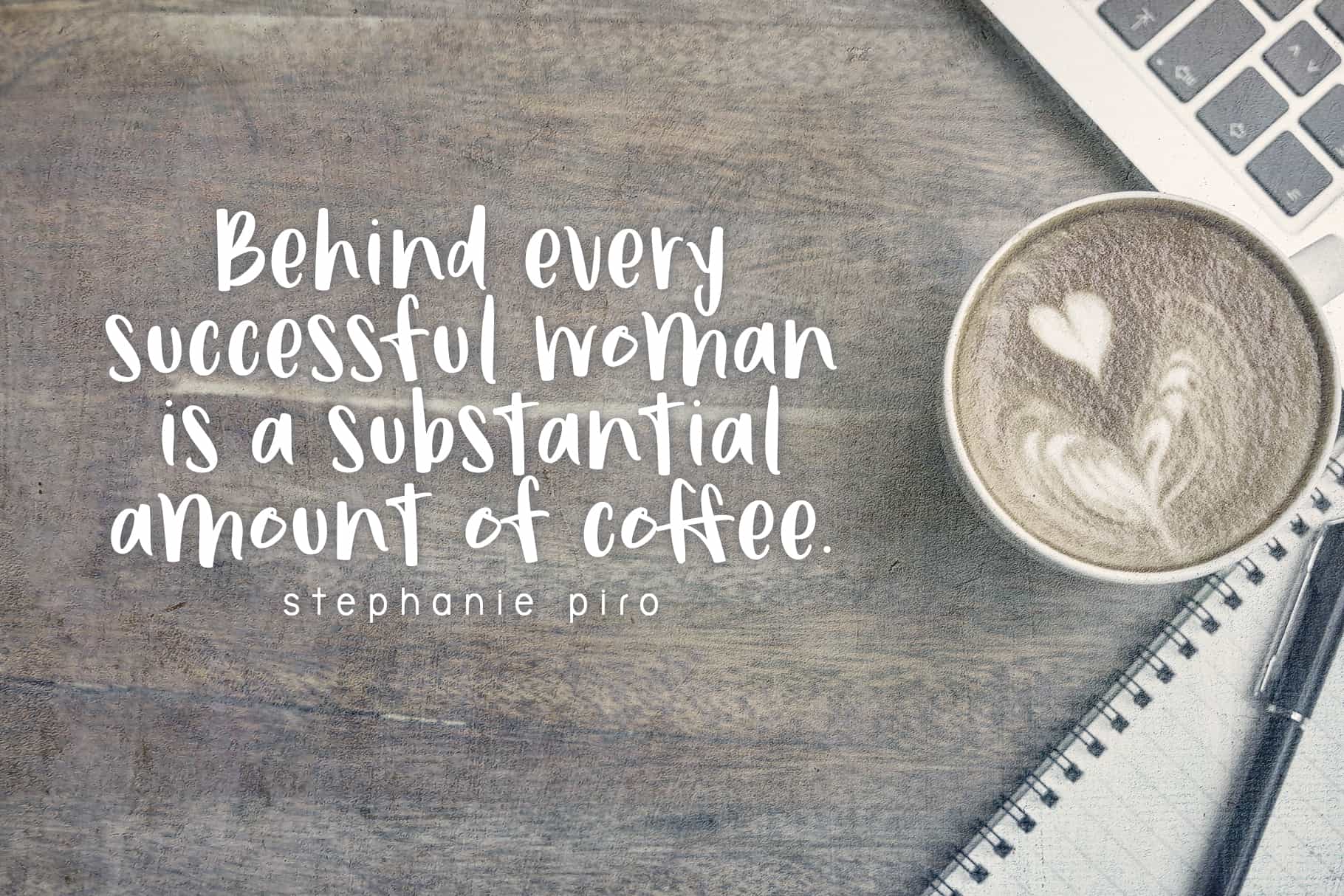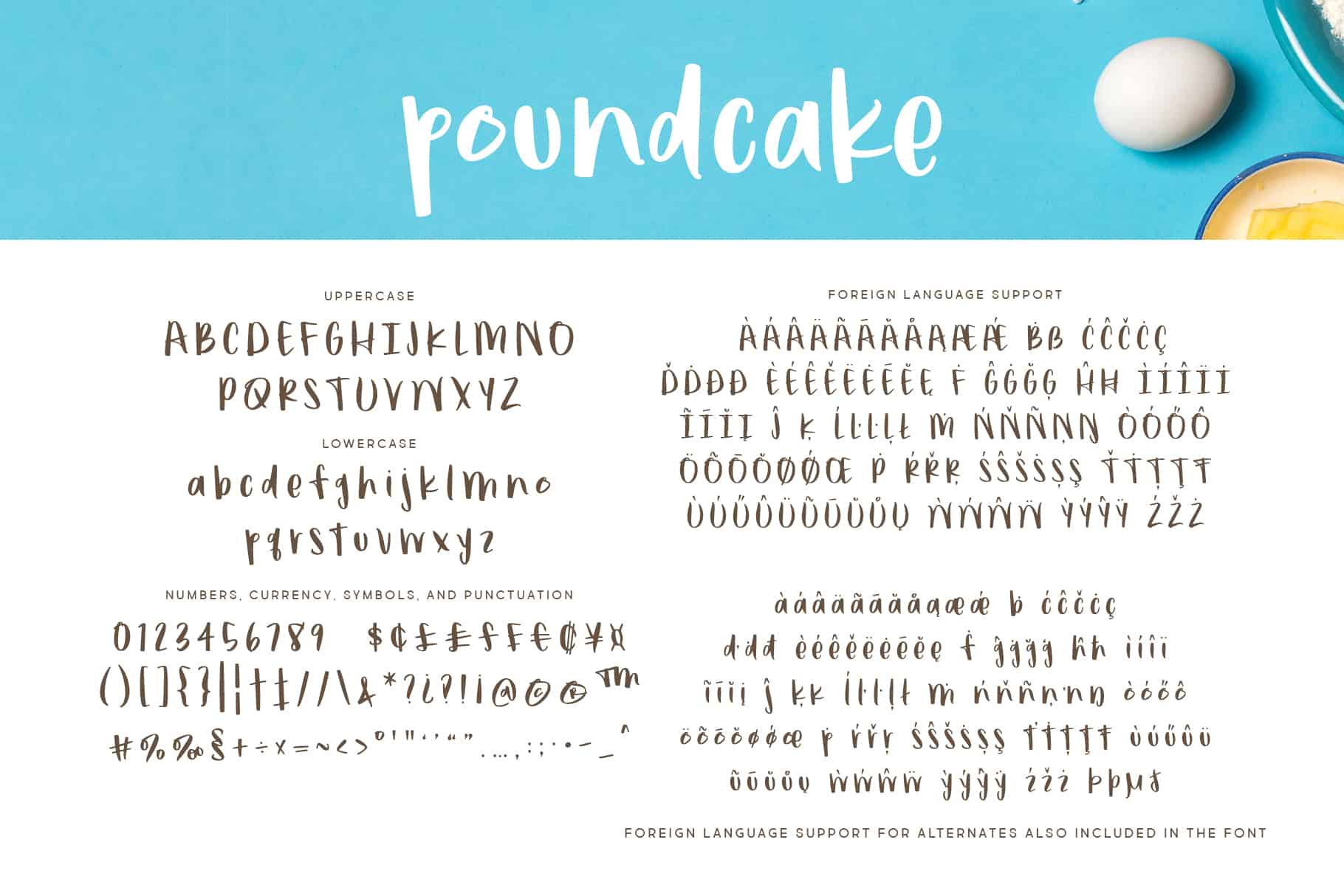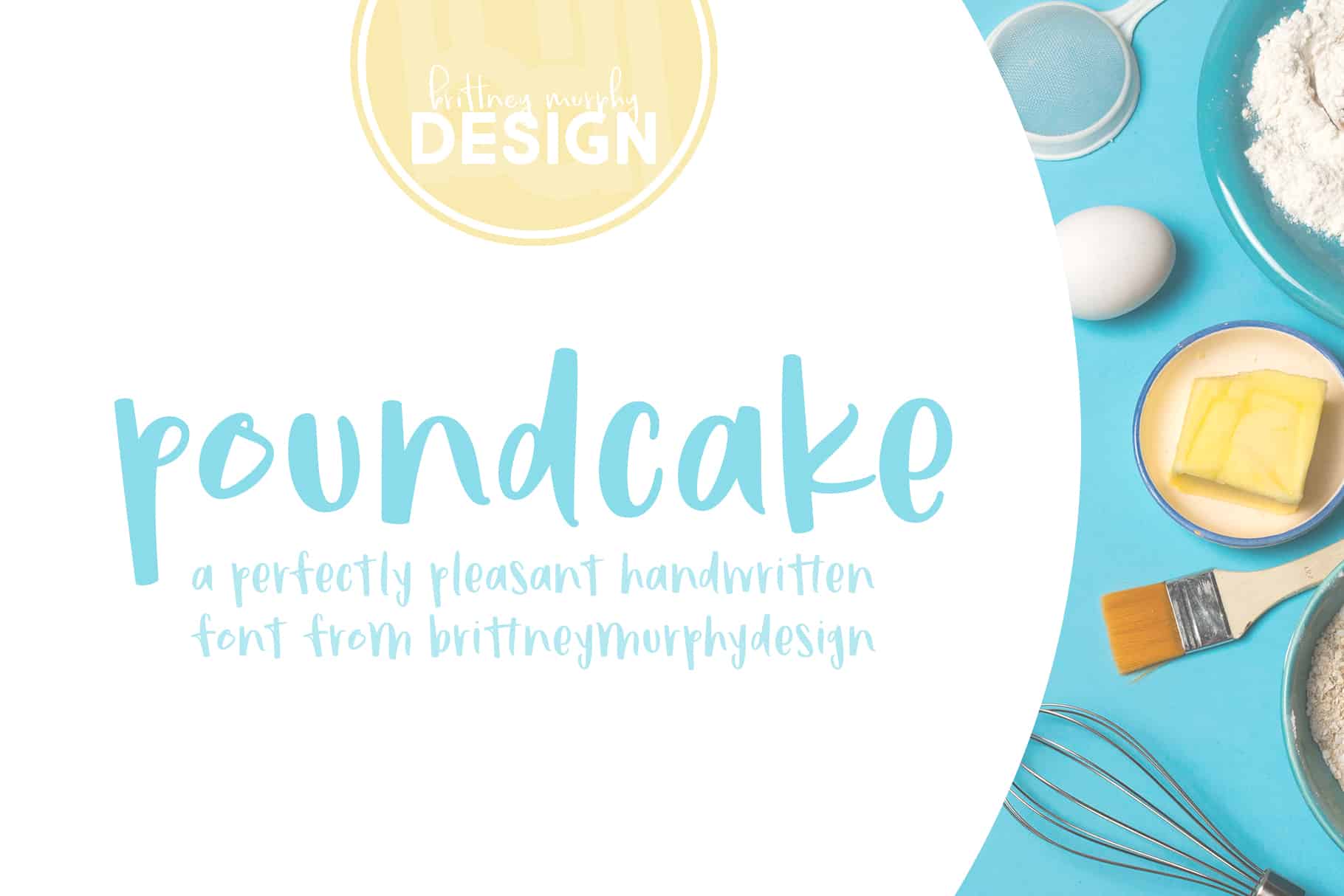
Poundcake
The Poundcake font is a cute and playful handwritten font created in 2020 by Brittney Murphy Design. Poundcake currently contains 379 characters and has support for most Latin-based languages. With a scripty feeling, Poundcake is great for any graphic design project you want to give a sassy but clean look.